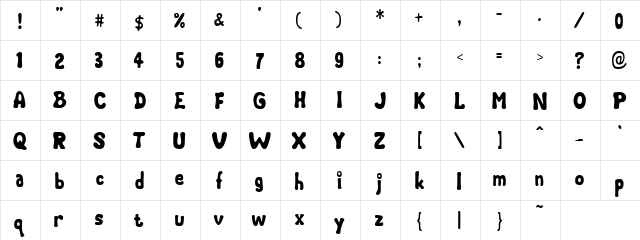
Orgas Regular
Design Context for Orgas Typeface
Orgas offers clean, dependable letterforms without strong stylistic allegiance, making it a practical choice for designers who need flexibility.
Pro Tip: Use Orgas in both headline and body roles to test its range before committing to a single application.